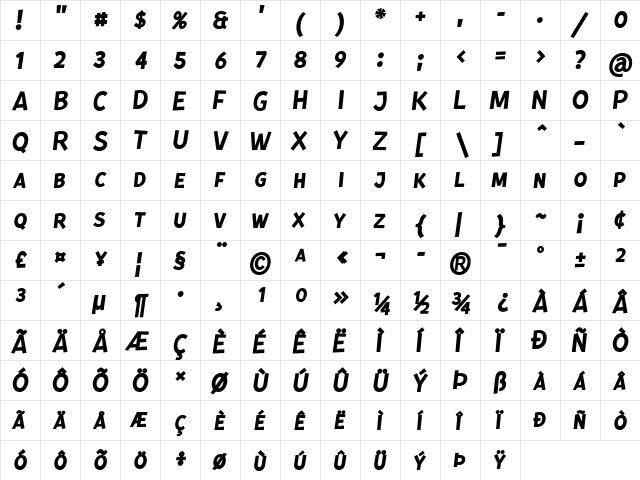
Kurri Island Caps Italics Med Regular
| Foundry | Mans Greback |
| Designer | Mans Greback |
Design Context for Kurri Island Caps Italics Med Typeface
Kurri Island Caps Italics Med takes a measured approach to typography — its balanced proportions and neutral character make it a reliable workhorse for both digital and print work. The slanted form adds forward momentum and visual energy.
Pro Tip: Try Kurri Island Caps Italics Med for annotation and caption copy alongside an upright companion — the contrast in angle creates a dynamic but ordered typographic system.